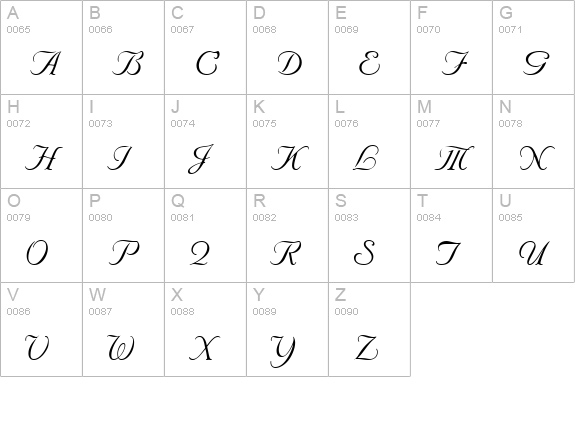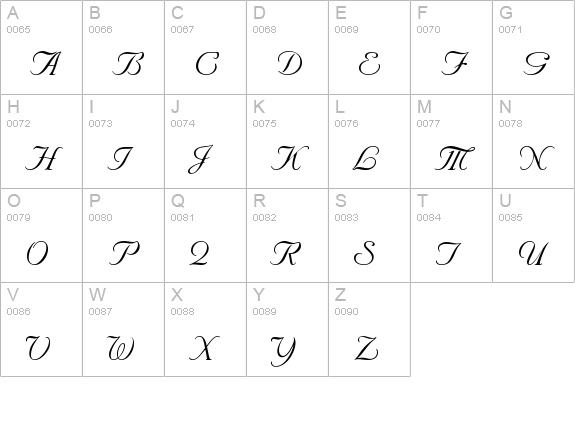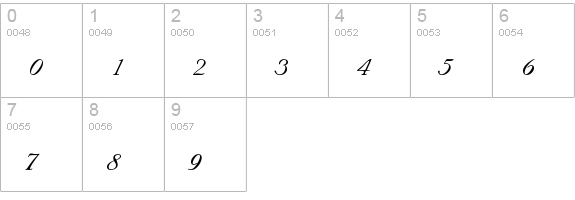
Nuncio Regular is the standard, neutral variant in the Nuncio typeface family \xE2\x80\x94 well suited to general body text, paragraphs, and standard typographic work.
Nuncio Regular font is a classic and elegant typeface that exudes sophistication and versatility. With its clean lines and timeless design, this font is perfect for a wide range of design projects, from branding to editorial work. The Nuncio Regular font strikes the ideal balance between modernity and tradition, making it suitable for both contemporary and traditional design styles. What's more, Nuncio Regular font is available for free download at FontsMarket.com. This means that you can easily access this high-quality typeface without any cost, making it a valuable addition to your font collection. Whether you're a professional designer or a hobbyist, Nuncio Regular font offers a stylish and professional option for your projects. Download it today and elevate your designs with this exquisite typeface.